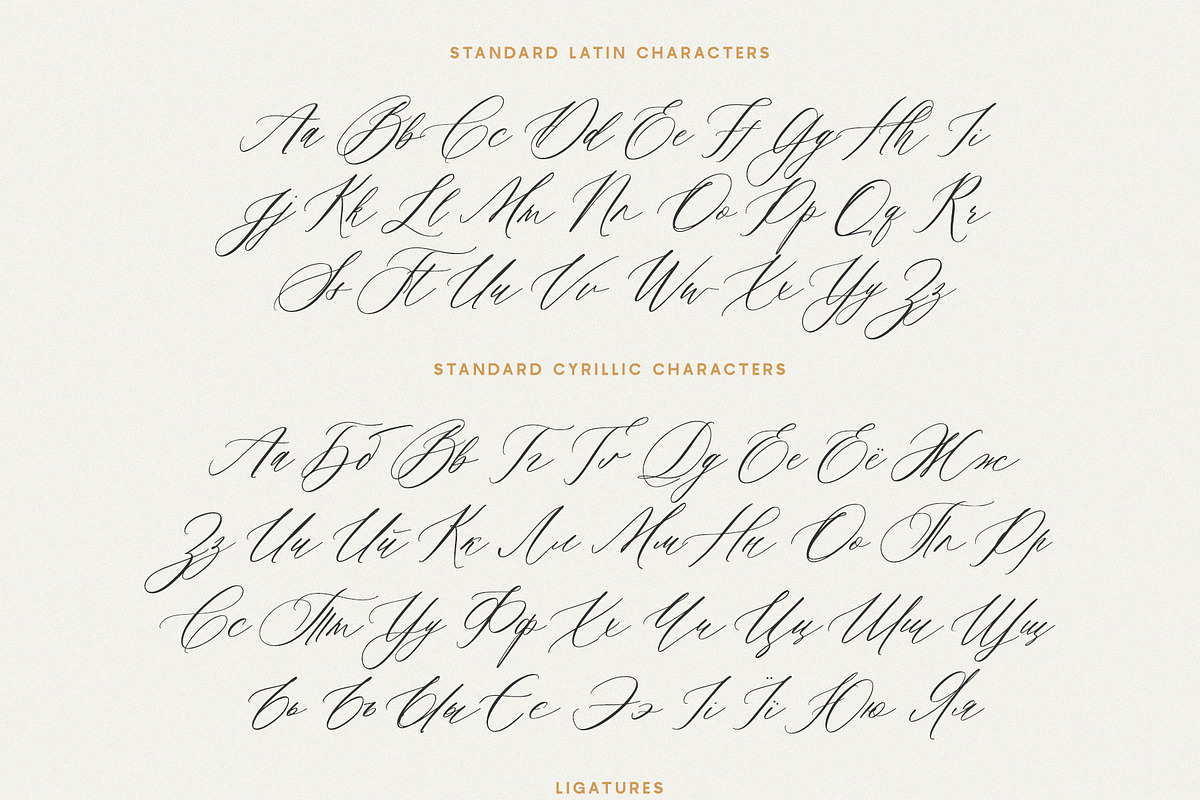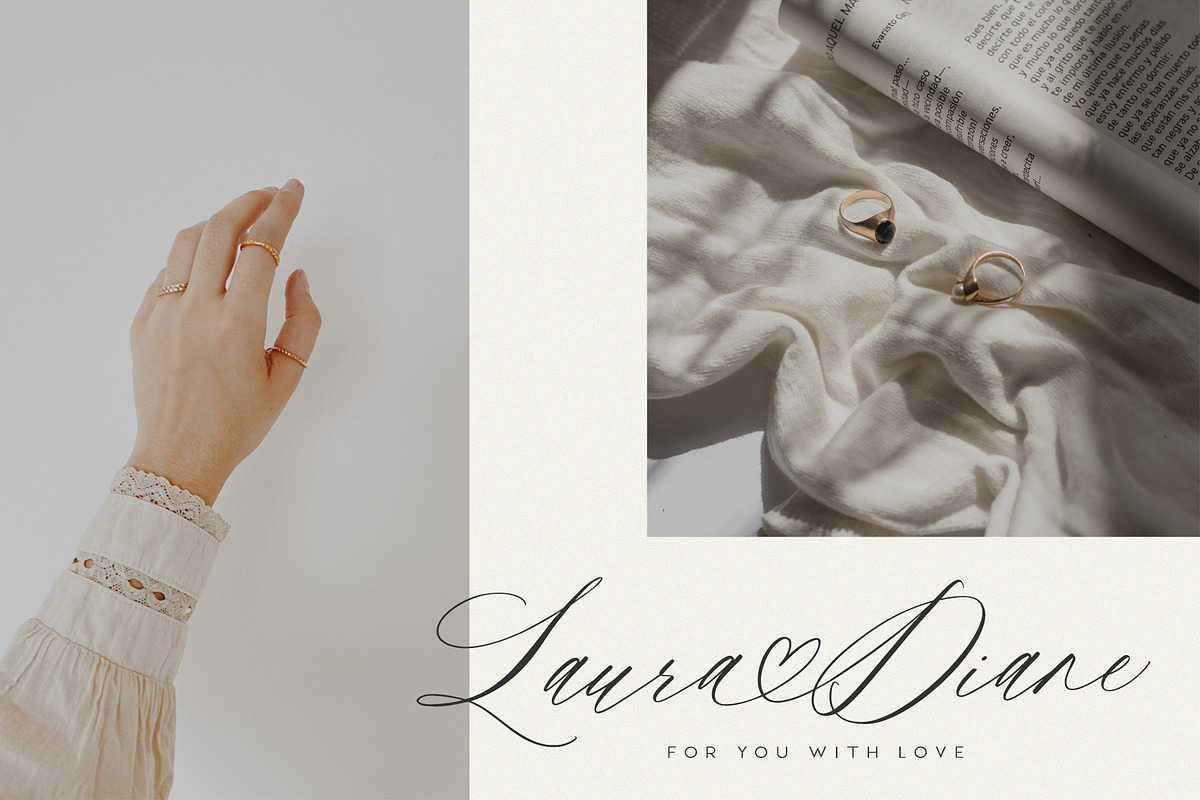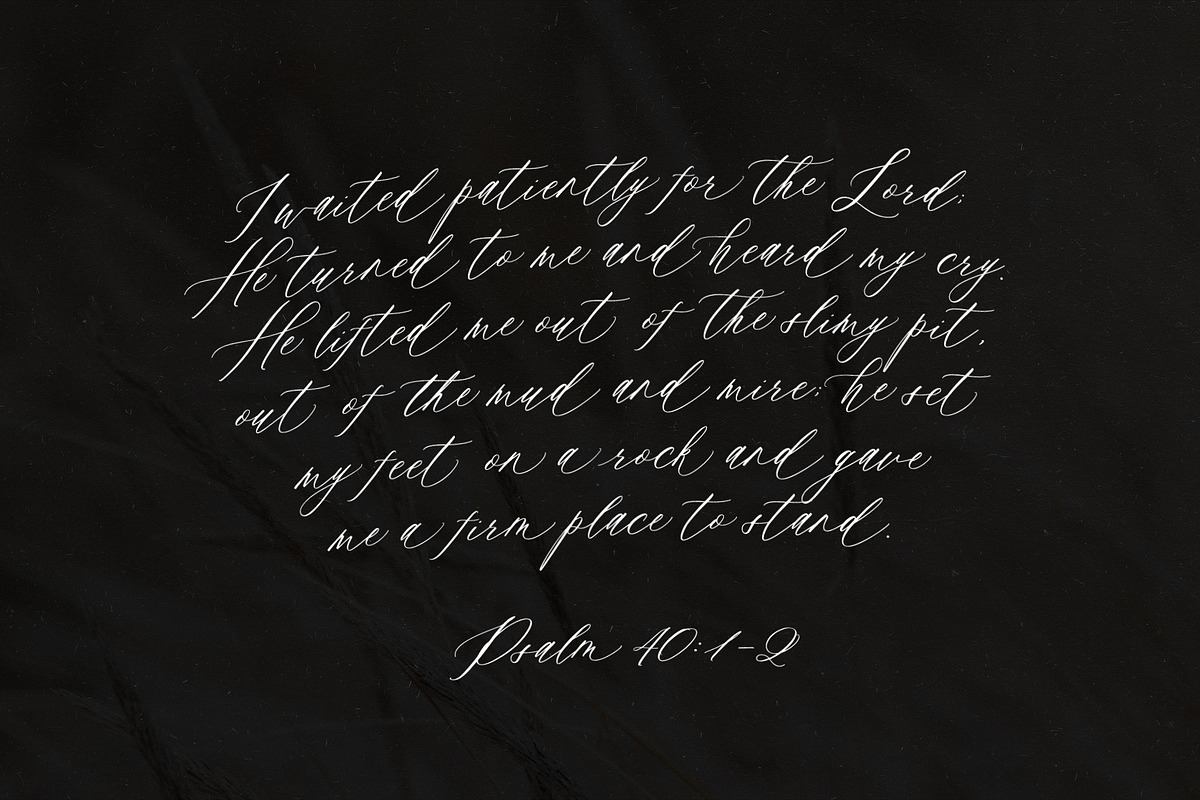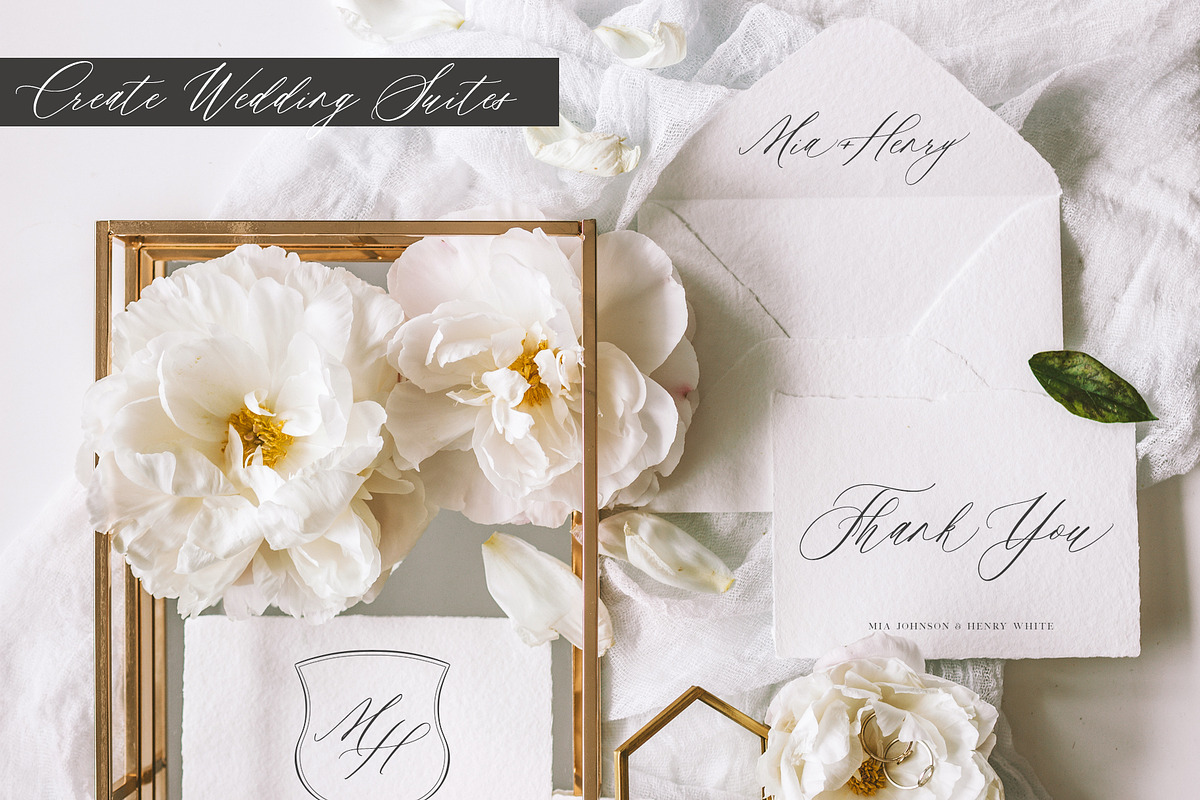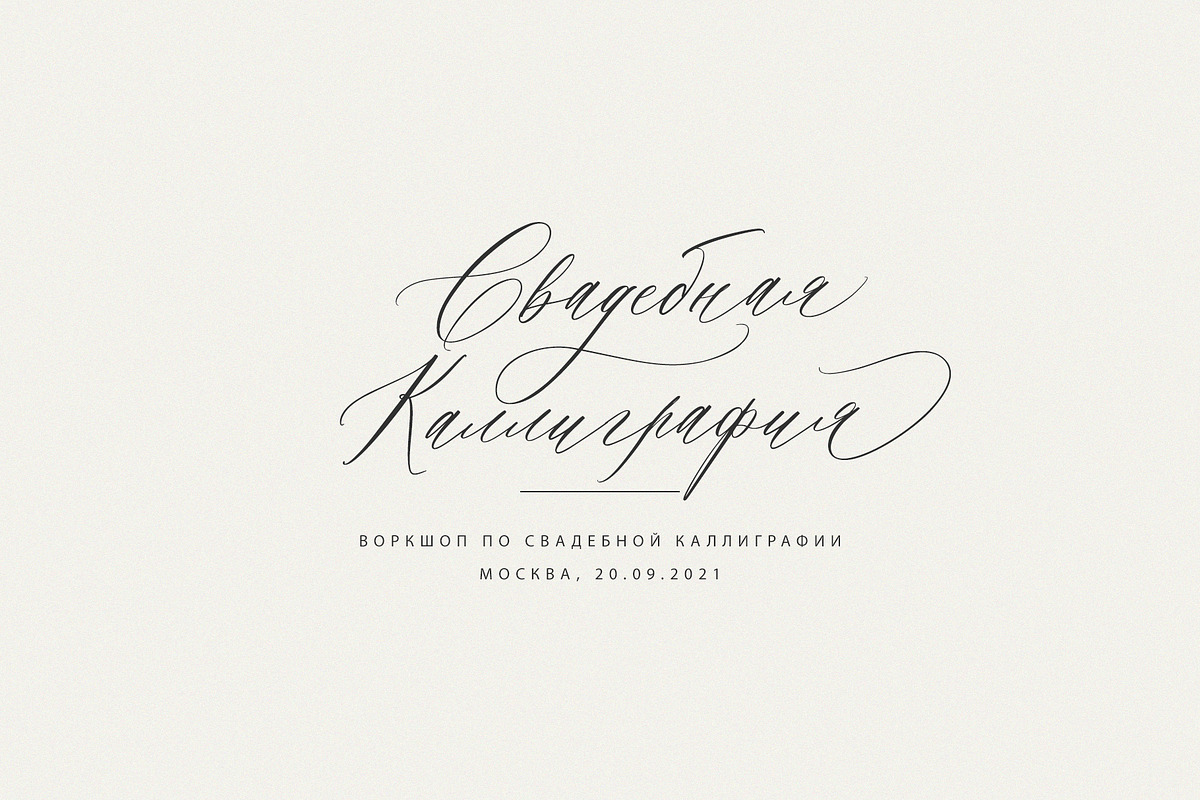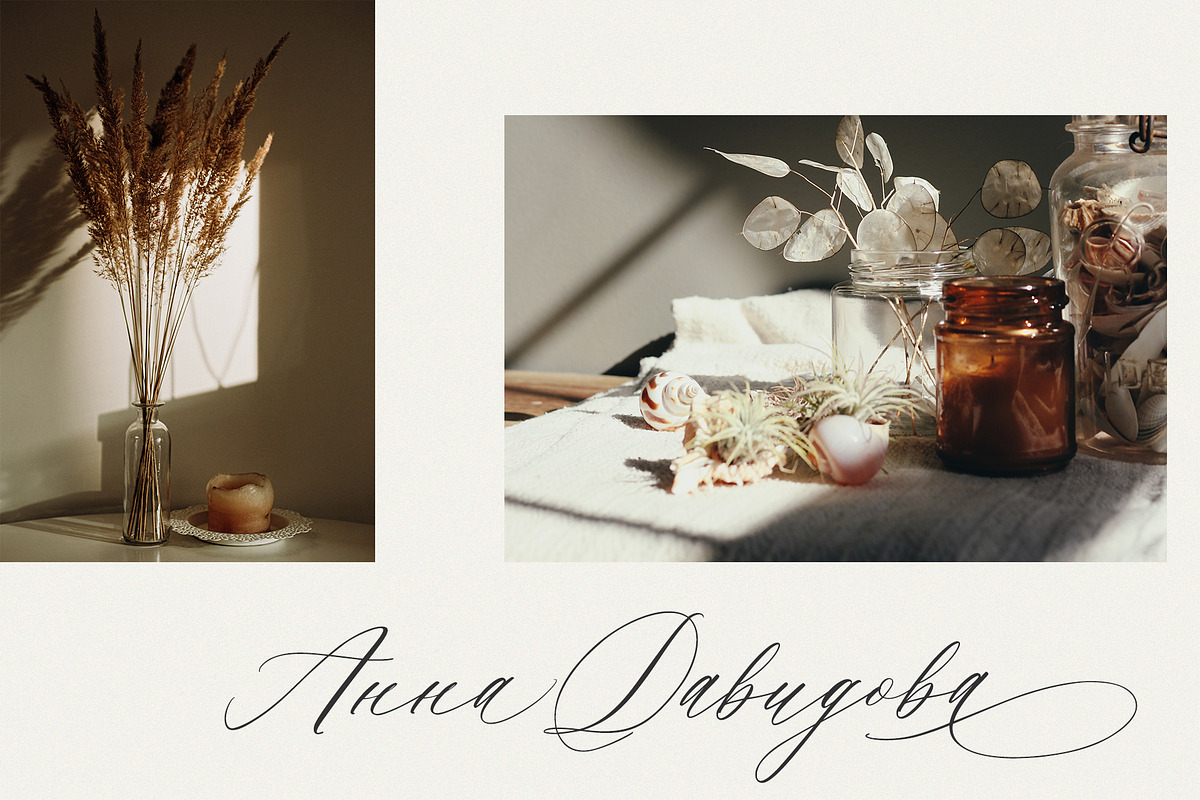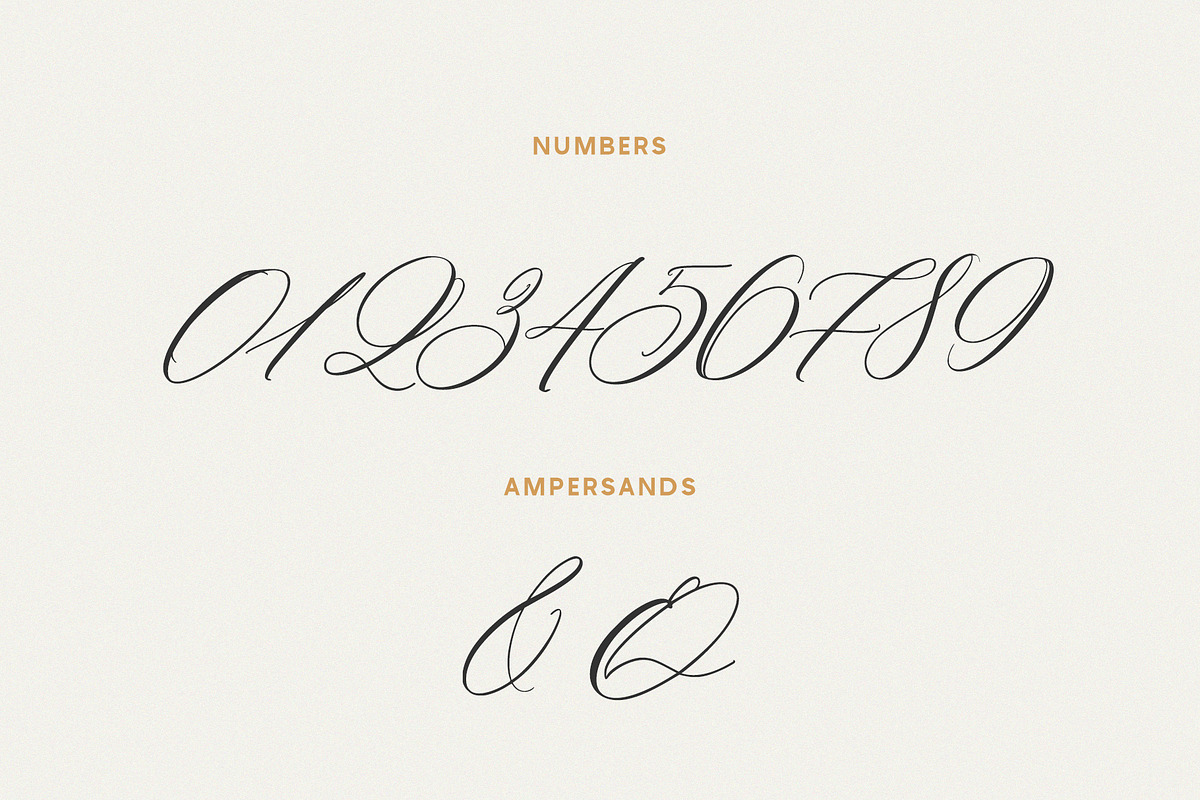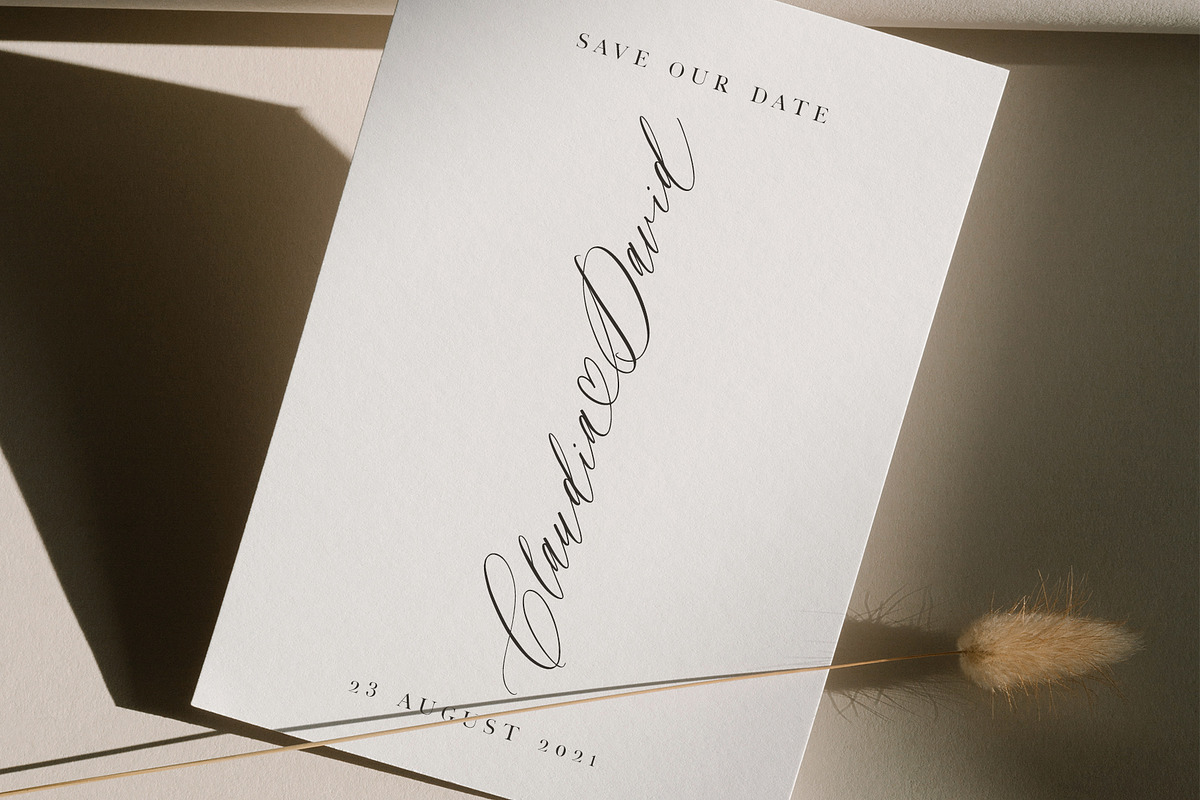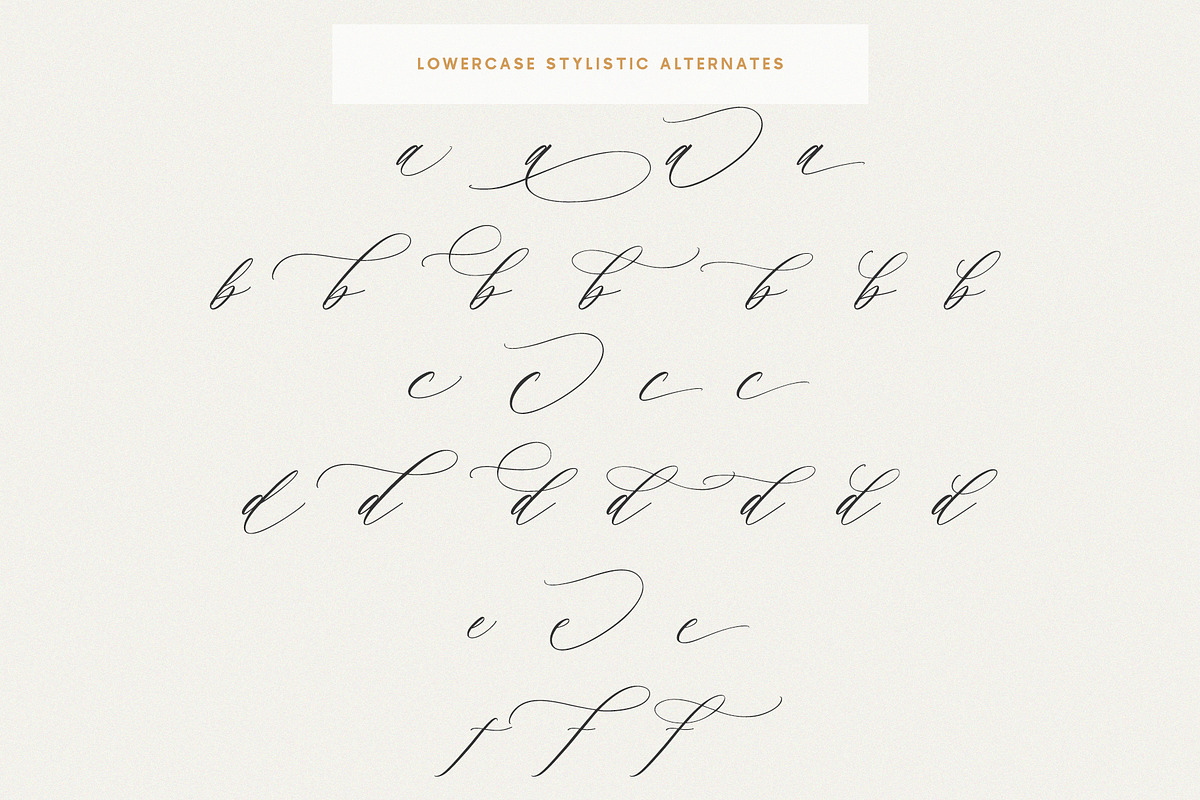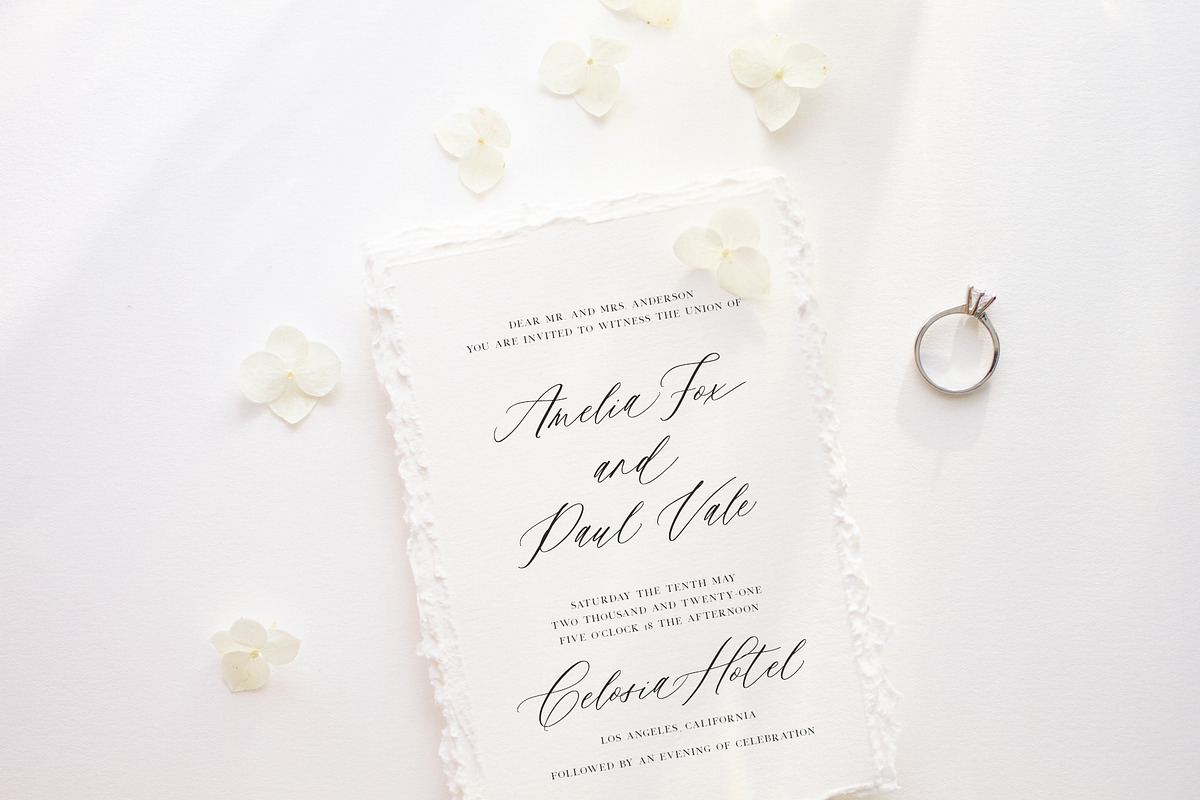
Saint Viet | Calligraphy Font
Hi my friends. I'm so happy to introduce you my new and the biggest font that I've ever created.
Saint Viet is a light, lovely and modern calligraphy font with sophisticated flows. This beautiful script particularly well suited for wedding invitations, save the date cards and feminine branding.
Saint Viet includes full set of Uppercase and Lowercase Basic Characters, Numbers and Punctuation. Also it contains ligatures and more then 500 stylistic alternates to perfectly re-create natural calligraphy (check the previews in order to see how they work). Each Uppercase letter has 2-5 different calligraphic alternates and some of the letters have up to 10 alternatives.
This beautiful Script supports Latin & Cyrillic alphabets giving a huge range of language support, including:
- albanian, belarusian, bosnian, bulgarian, croatian, czech, danish, dutch, english, estonian, filipino, finnish, french, german, hungarian, icelandic, indonesian, irish, italian, latvian, lithuanian, luxembourgish, polish, portuguese, romanian, russian, slovak, slovenian, spanish, swedish, swiss german, turkish, turkmen, ukrainian, welsh and much more.